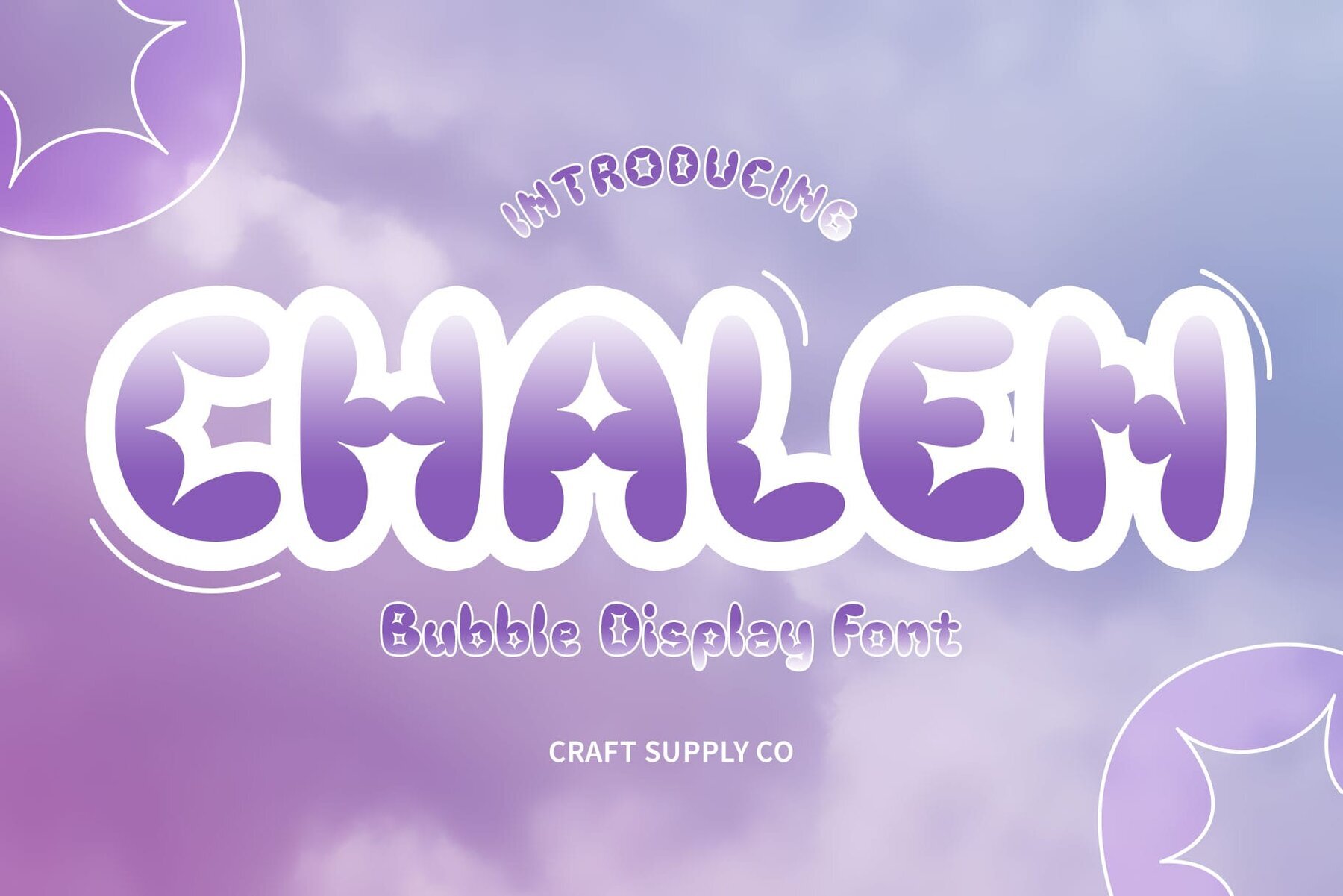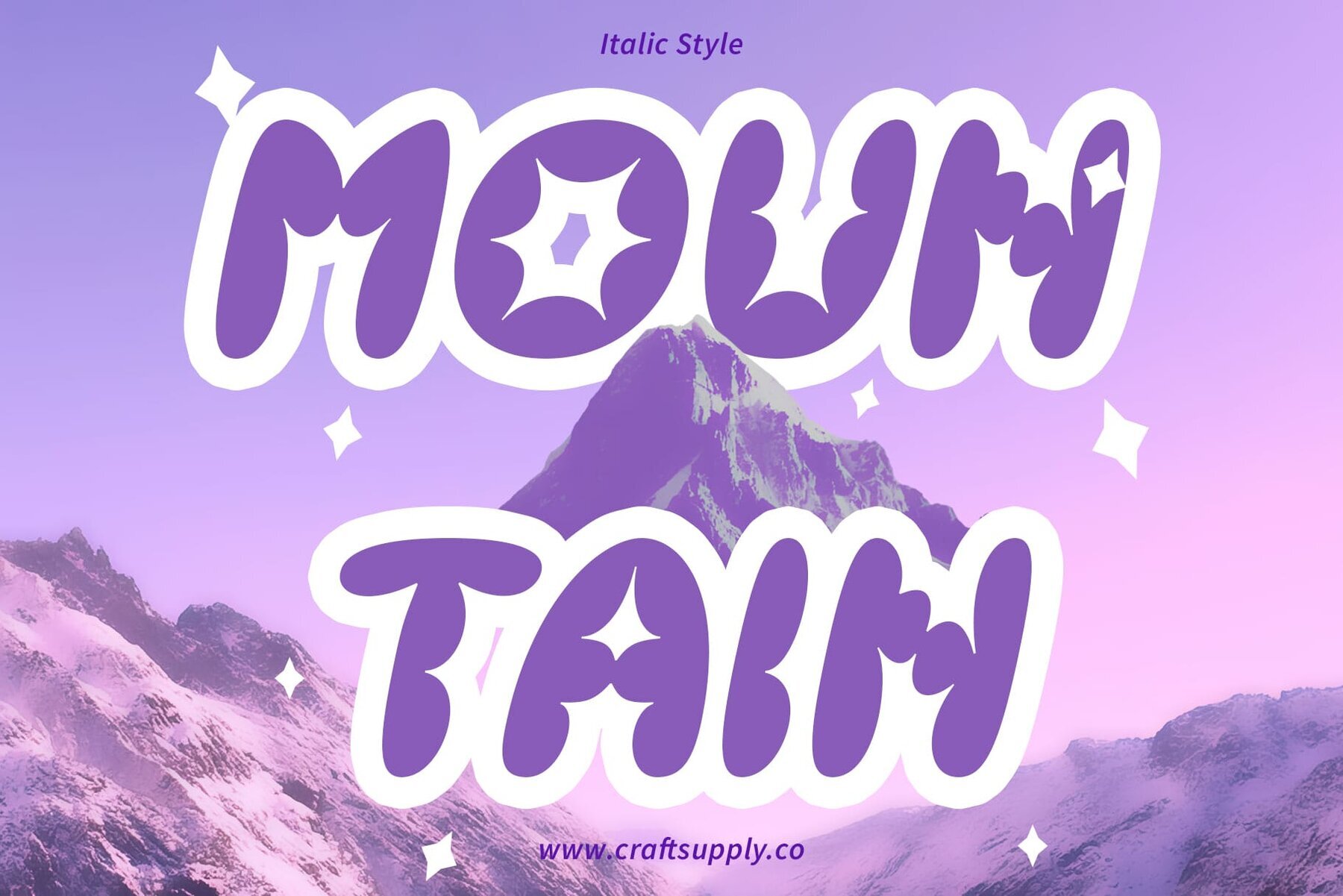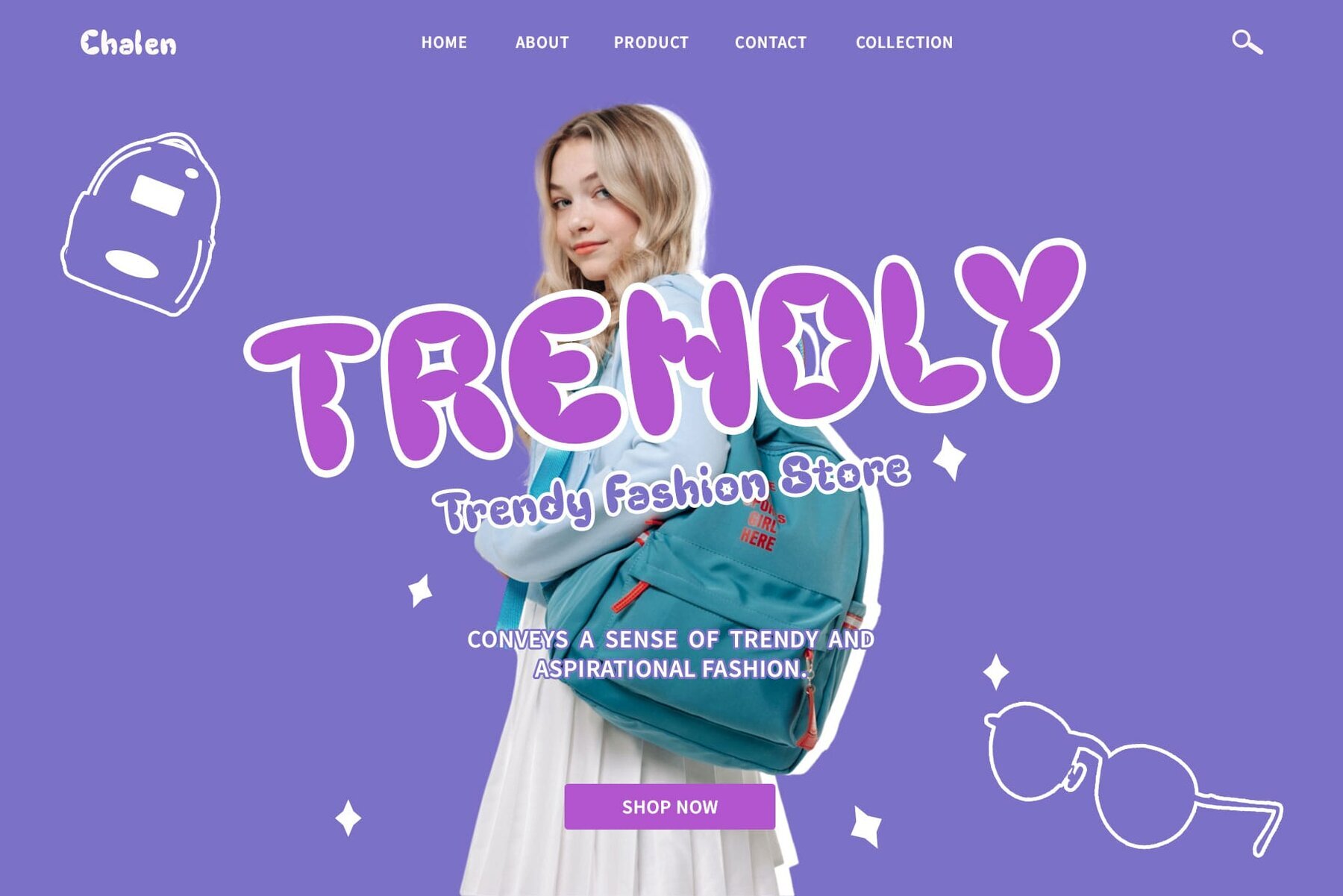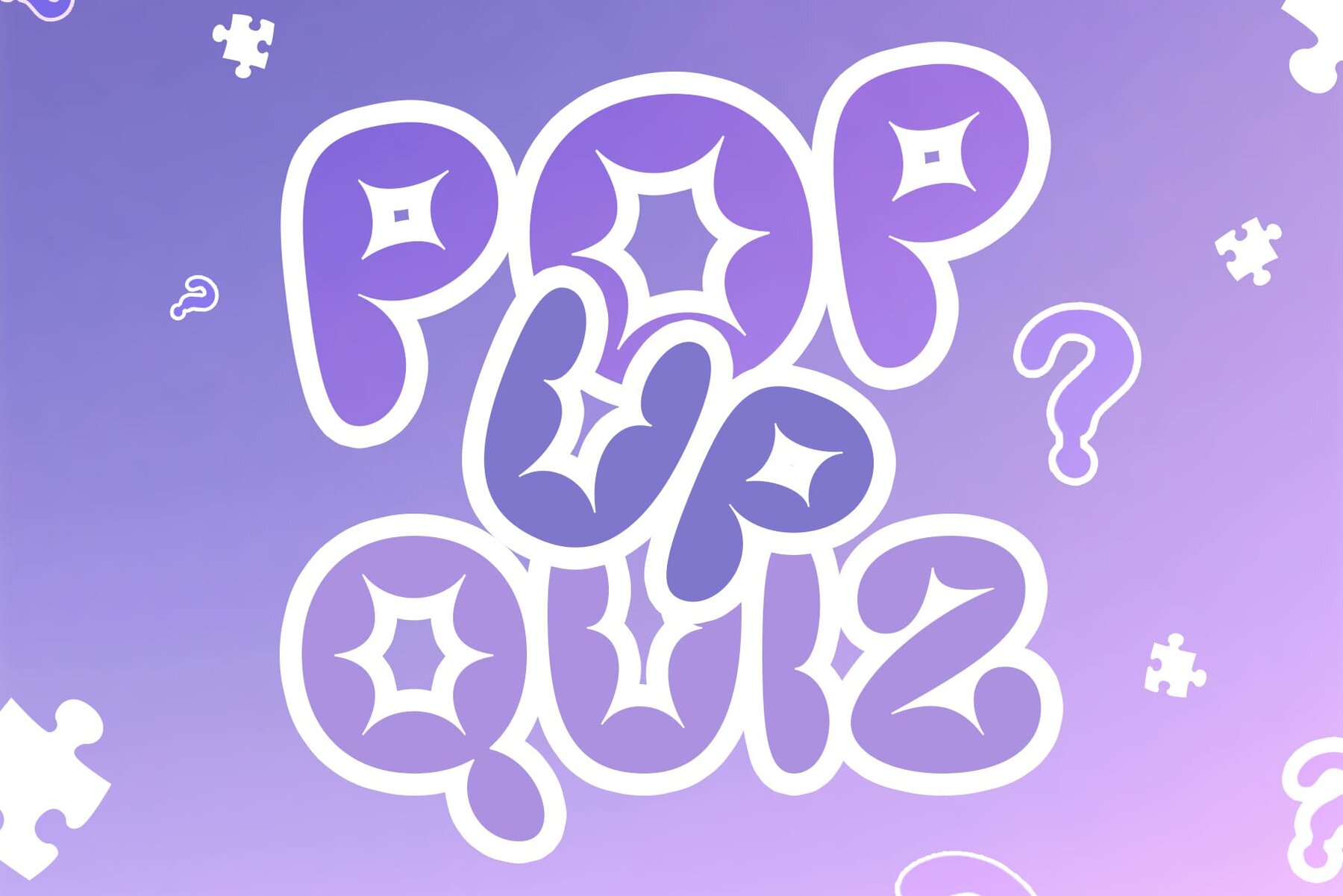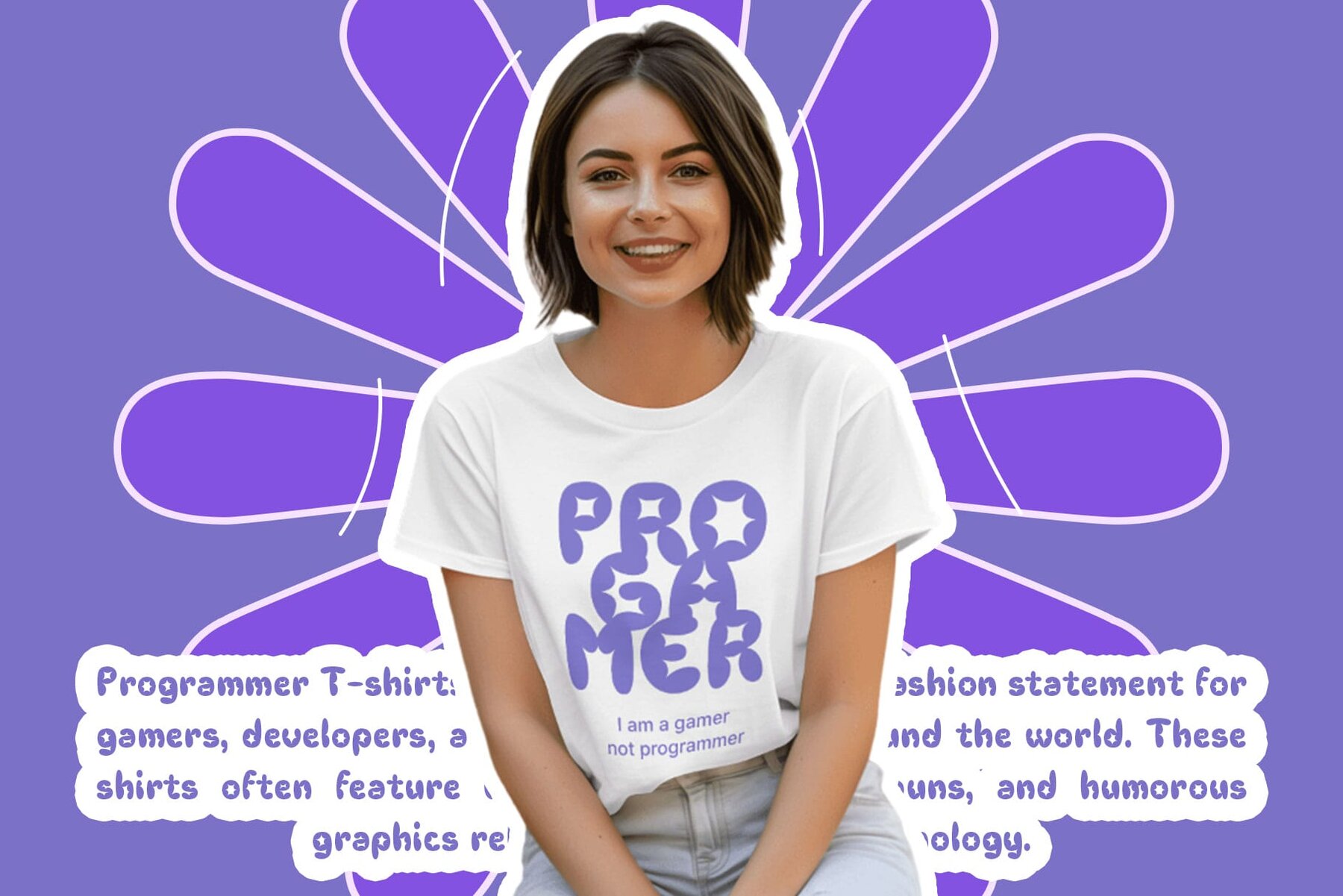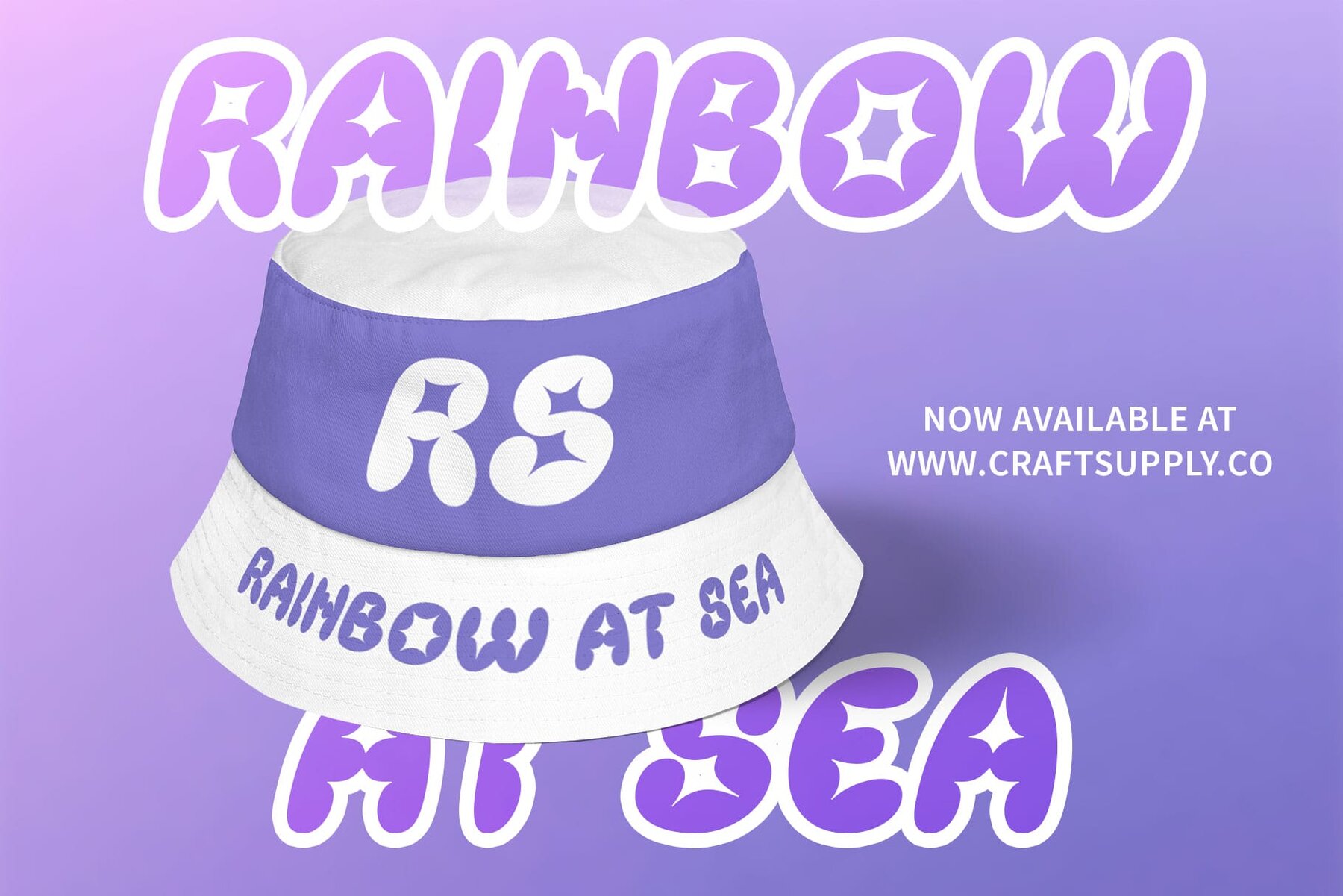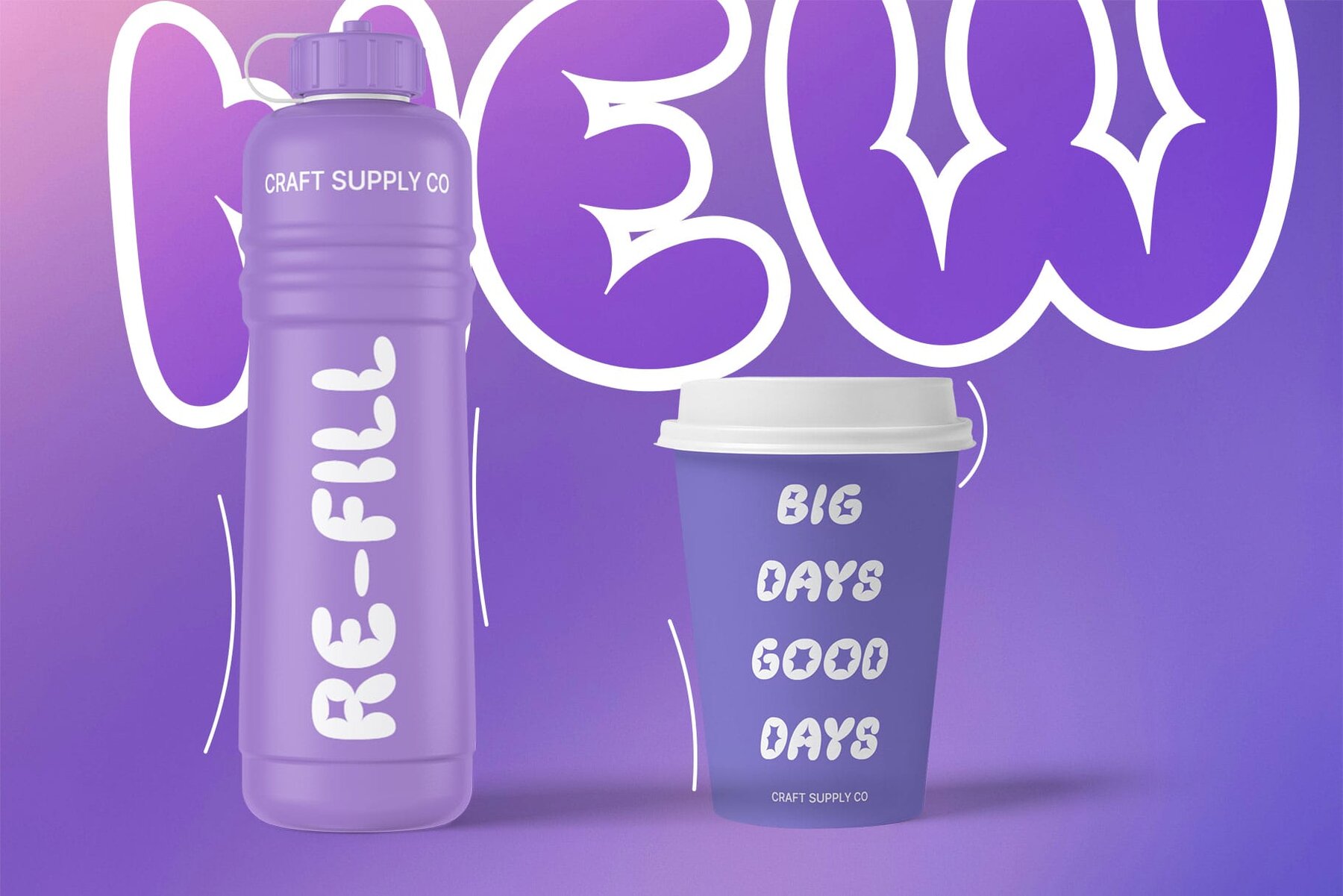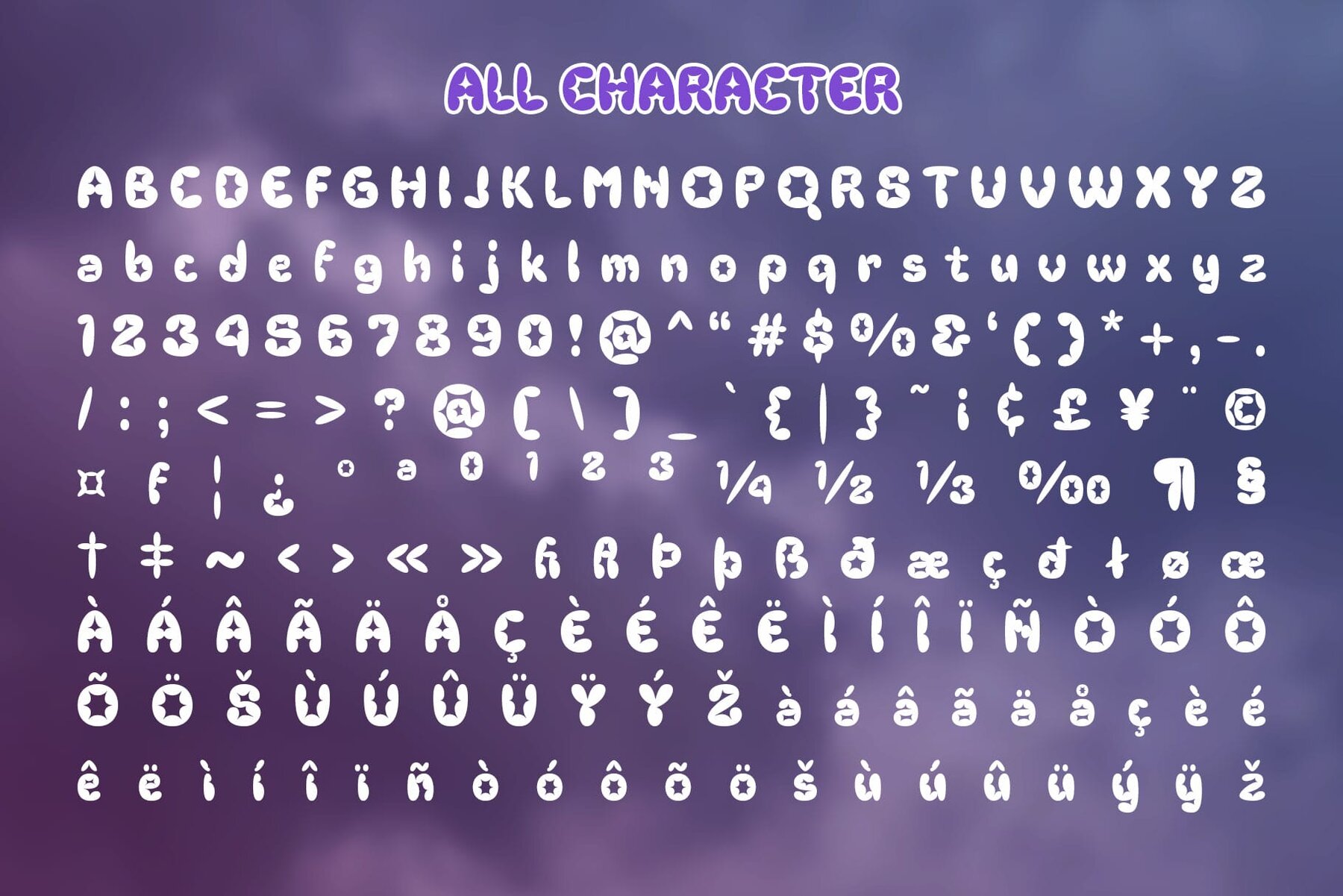
Chalen Font
Chalen is a dynamic font designed by Craft Supply Co., offering a fun and playful aesthetic influenced by bubble shapes. Ideal for a wide range of creative projects, Chalen's rounded edges and chubby letterforms immediately infuse any design with a light-hearted, joyous vibe. Each character in Chalen is meticulously crafted with soft, rounded edges that mimic the shape of bubbles, making the font appear friendly and approachable. This unique design makes it suitable for children's projects, party invitations, and any content aiming for a whimsical touch. While inherently playful, Chalen's design is remarkably versatile, adapting well to various digital and print mediums. Whether it's used in logos, headers, or promotional graphics, this font maintains its readability and charm. It excels particularly in designs targeted towards young audiences or casual, informal events. Chalen is optimized for both web and print use, ensuring that the font maintains its quality and effectiveness across all mediums. This dual adaptability makes it an excellent choice for designers seeking a font that can transition smoothly between online and offline applications.Chalen by Craft Supply Co.: A Playful Bubble-Inspired Font
Bubble-Inspired Design
Versatility in Applications
Web and Print Readiness
Font Pairings